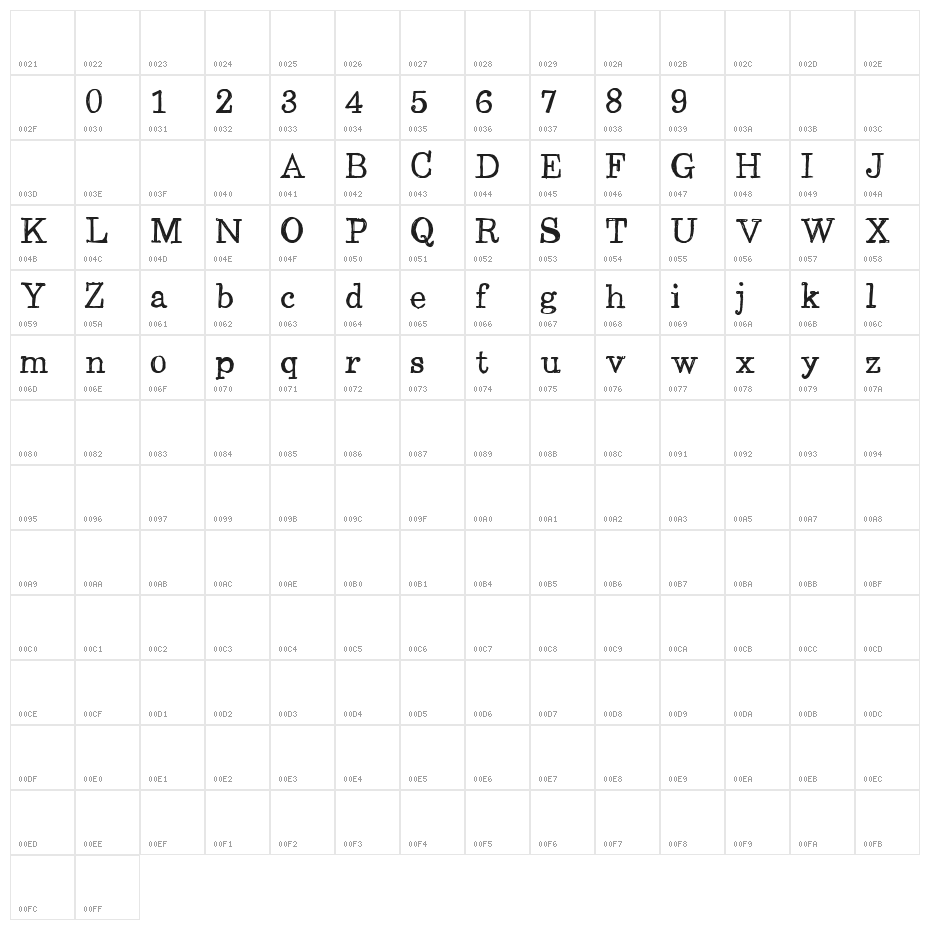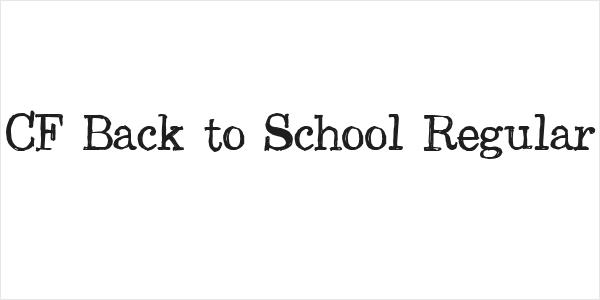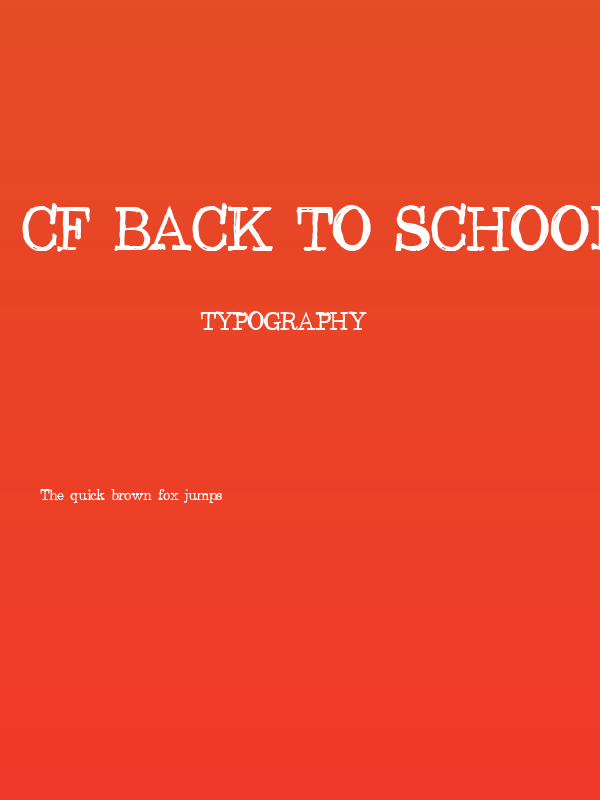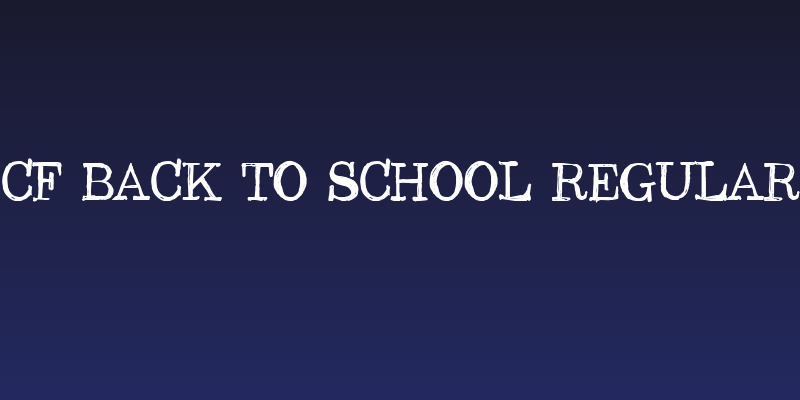
CF Back to School Regular Font
CF Back to School Regular Description
This font features a playful and slightly distressed appearance, reminiscent of chalkboard writing. The characters have a hand-drawn quality, with uneven edges and a textured look that adds a casual, informal vibe. The uppercase and lowercase letters are well-proportioned, maintaining readability while offering a unique style. The numerals and special characters follow the same design, ensuring consistency across all text elements. This font is ideal for projects that require a touch of whimsy and creativity, such as educational materials, children's books, or playful branding.
| Overall Style | Playful, Casual |
| Proposed Projects | Ideal for educational materials, children's books, playful branding, and creative projects. |